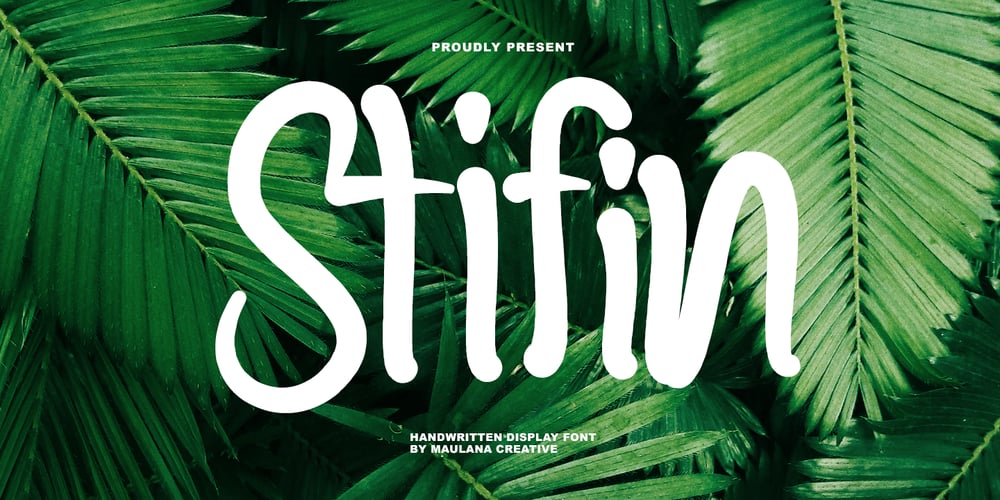
Stifin Font Family was designed by Gilang Maulana and published by Maulana Creative. Stifin contains 1 styles and family package options. Stifin handwritten display font. Bold stroke, fun character with a bit of ligatures and alternates. To give you an extra creative work. Stifin font support multilingual more than 100+ language. This font is good for logo design, Social media, Movie Titles, Books Titles, a short text even a long text letter and good for your secondary text font with script or serif. Make a stunning work with Stifin handwritten display font.Cheers, Maulana Creative